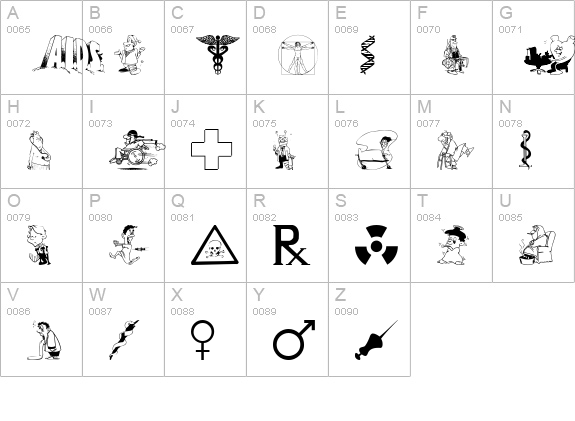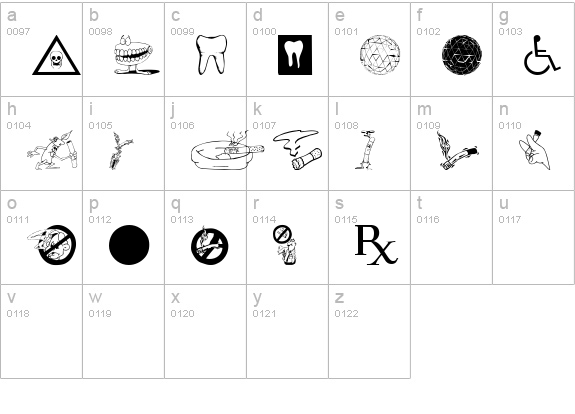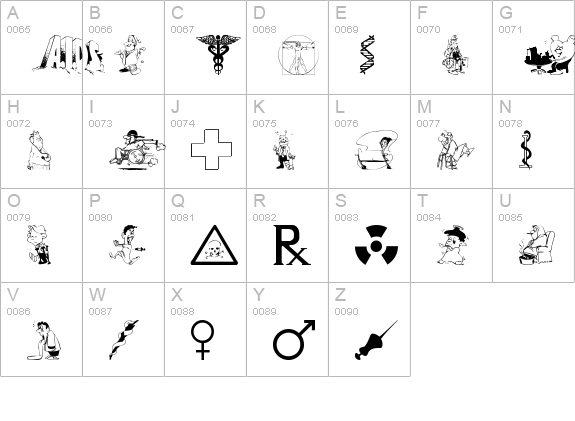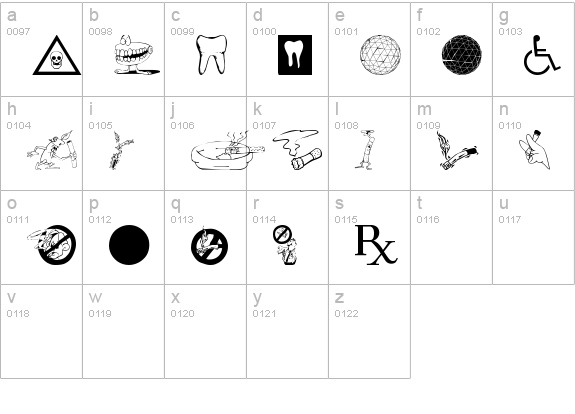
Medicobats Font Details
Medicobats font is a modern and versatile typeface designed for medical and healthcare-related projects. With its clean lines and sharp edges, this font exudes professionalism and clarity, making it perfect for use in medical reports, websites, and branding materials. The Medicobats font features a comprehensive set of characters, including symbols and icons commonly used in the healthcare industry, adding a touch of sophistication to your design projects. One of the best things about the Medicobats font is that it is available for free download at FontsMarket.com. This means that you can easily access this high-quality font without any cost, making it a valuable resource for designers, medical professionals, and anyone looking to add a touch of elegance to their projects. Don't miss out on the opportunity to enhance your designs with the Medicobats font - download it for free today!